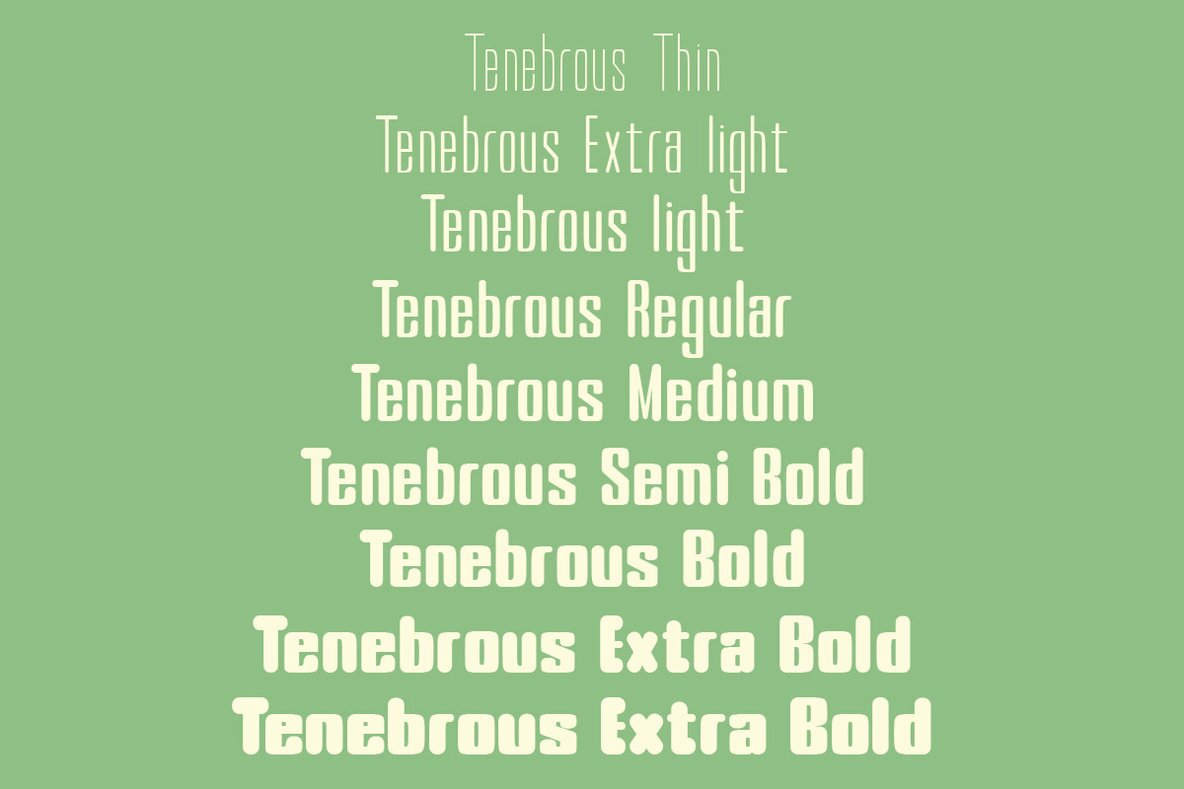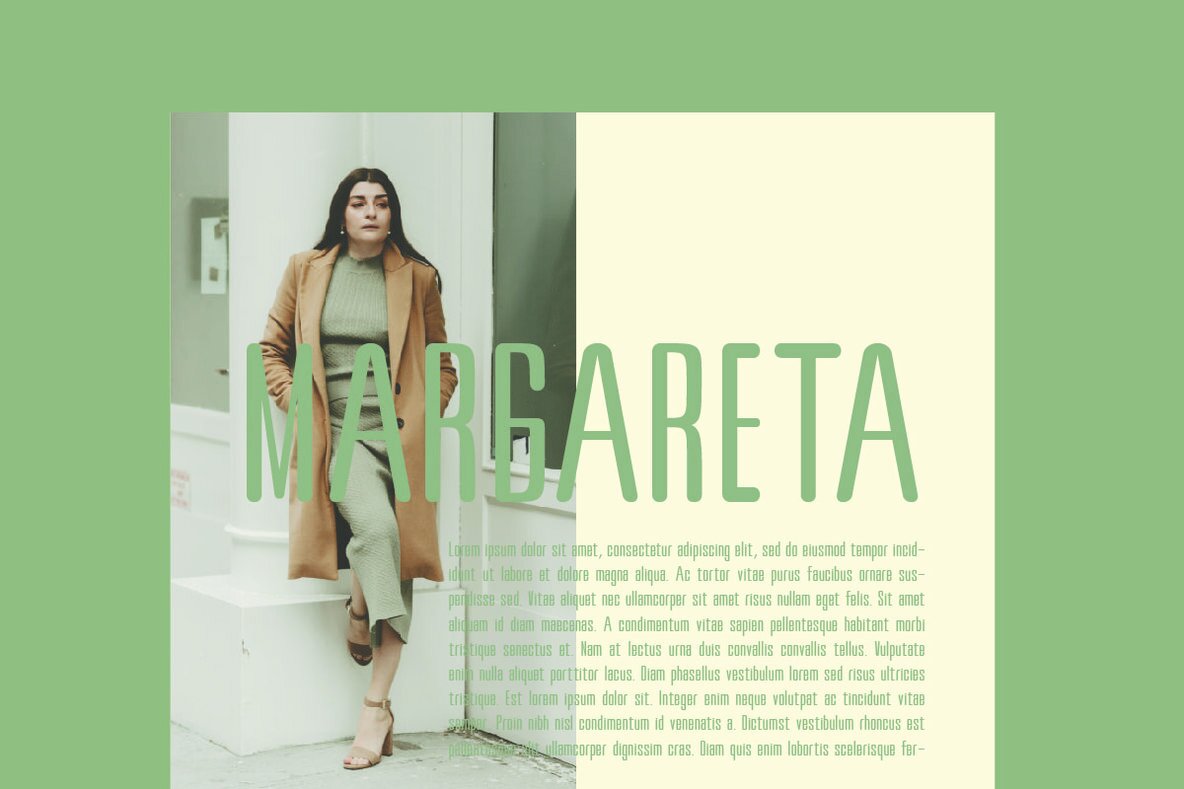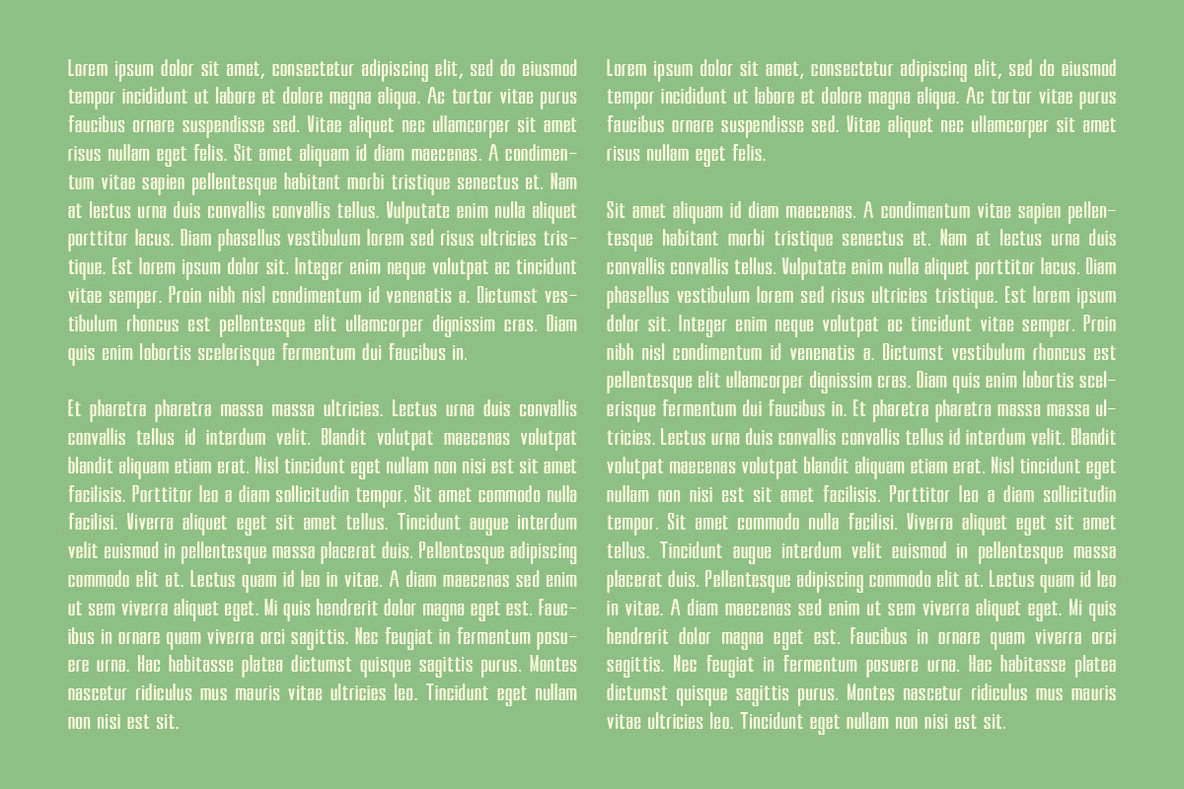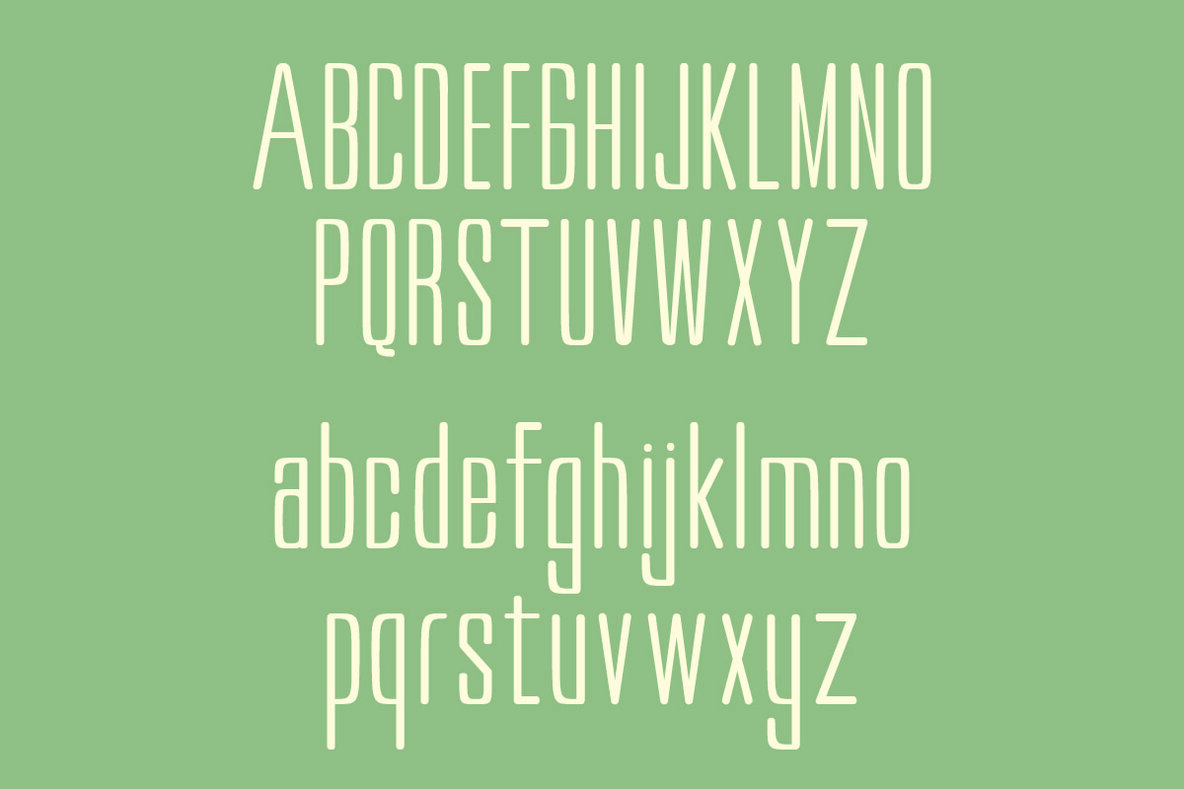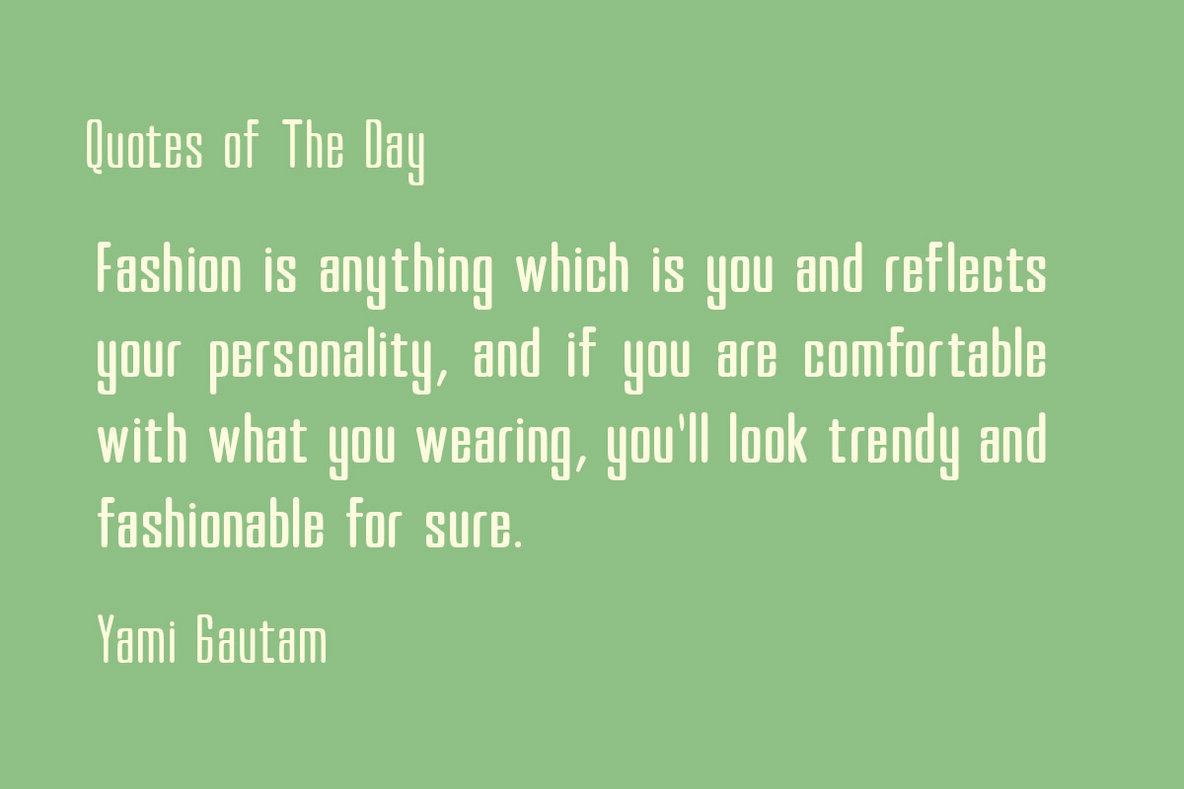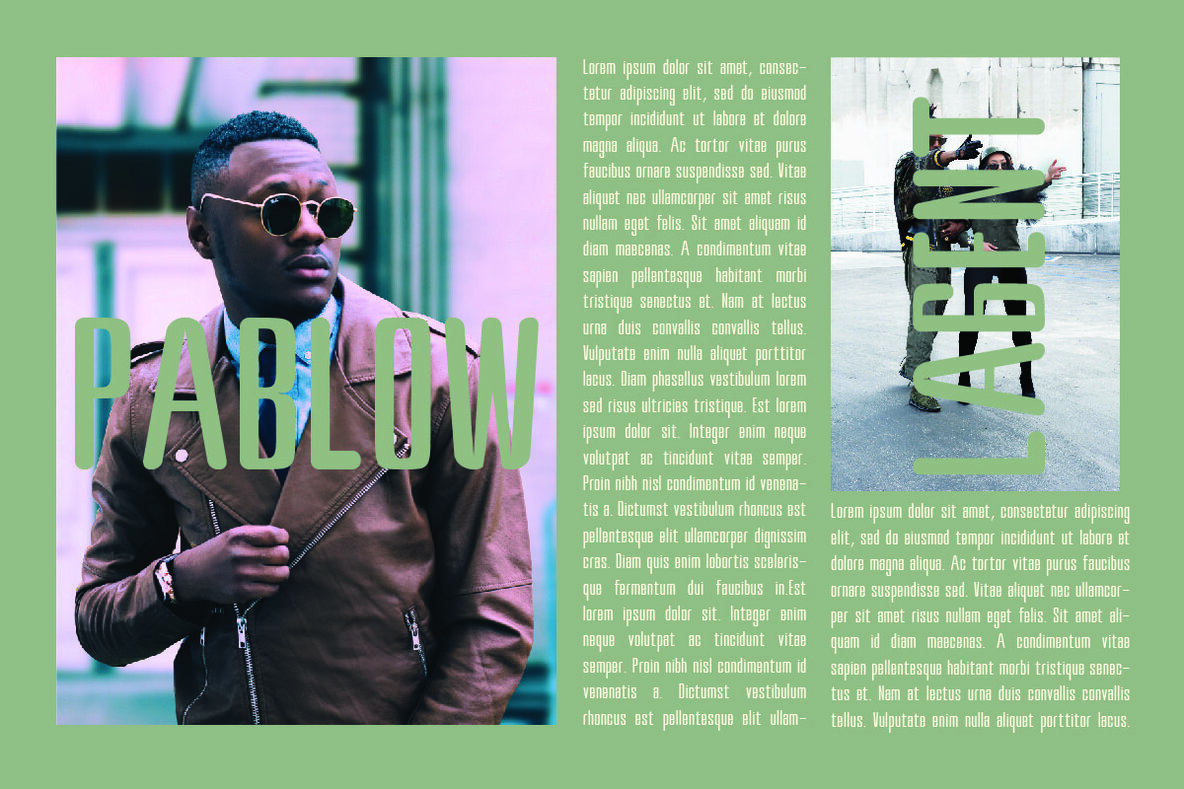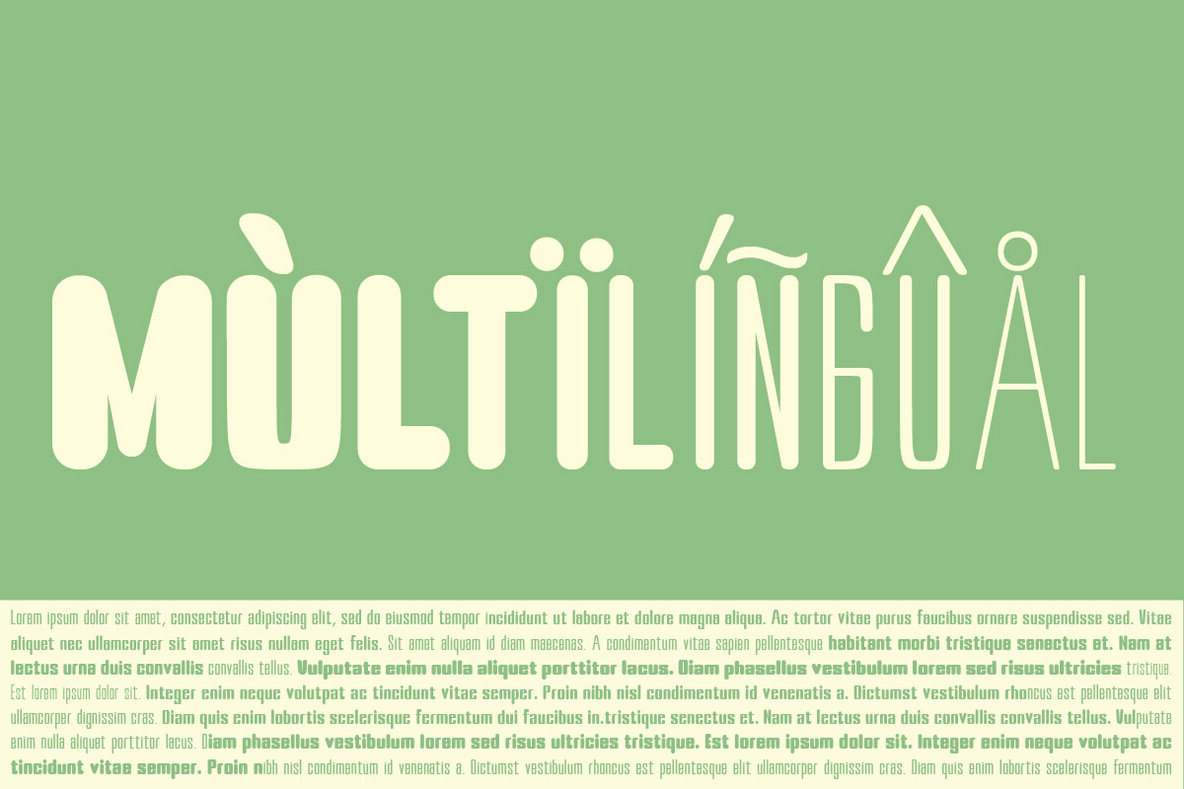
Tenebrous Font
Tenebrous is modern family of Display sans serif fonts. Koumon has 9 families font, starting from the small thin to the largest black. This typeface is versatile and can be used successfully in magazines, posters, branding, websites, etc. Features: